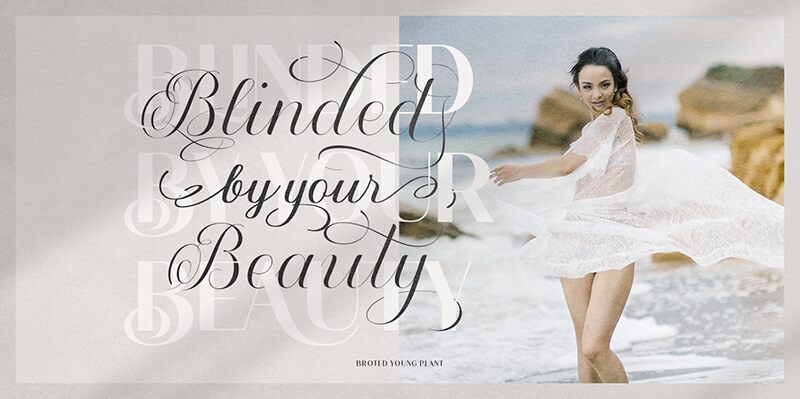
The Broted Young Plant Script by Kana Widana is a beautiful calligraphy font that's perfect for creating unique and eye-catching designs. Its light weight makes it suitable for projects such as stationery, logo design, wedding invitations, and social media posts.
Broted Young plant script